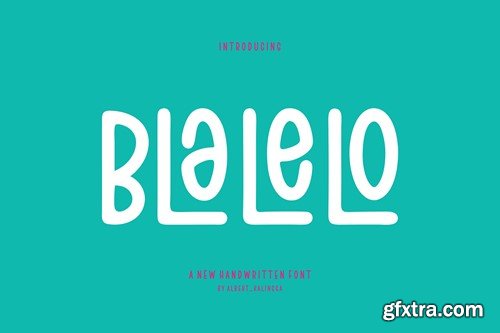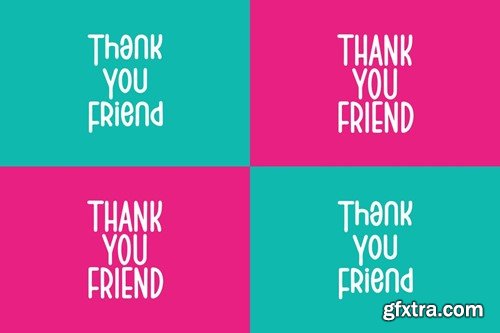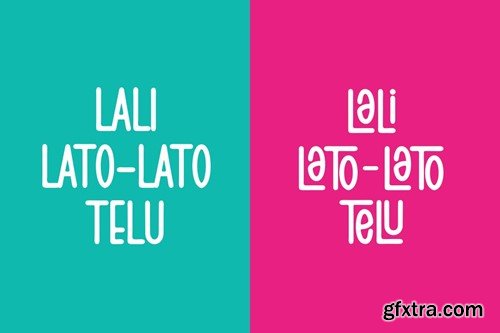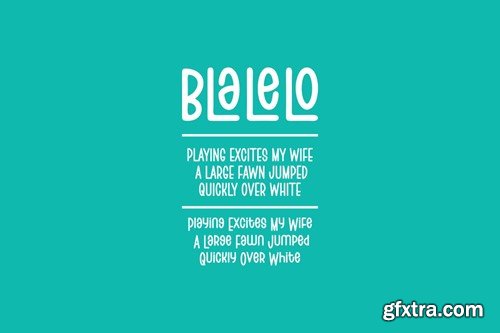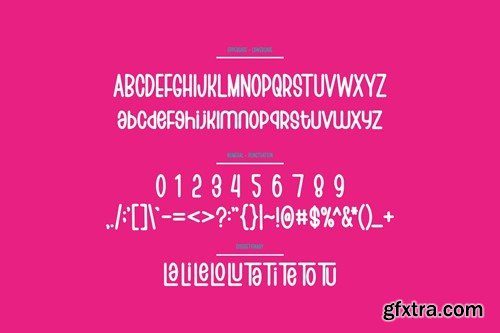
Blalelo Font
Introducing our new product Blalelo Font - Modern Font is a bold and authentic display font. The font is suitable for any branding project like logo, esport, and many more. outstanding in a wide range of contexts. availlable